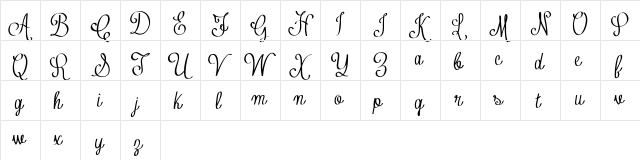
My-Custom-Essays Regular
| Foundry | My-Custom-Essays.com |
| Designer | My-Custom-Essays.com |
My-Custom-Essays is a composed and adaptable typeface that performs quietly and consistently across a wide range of design contexts.